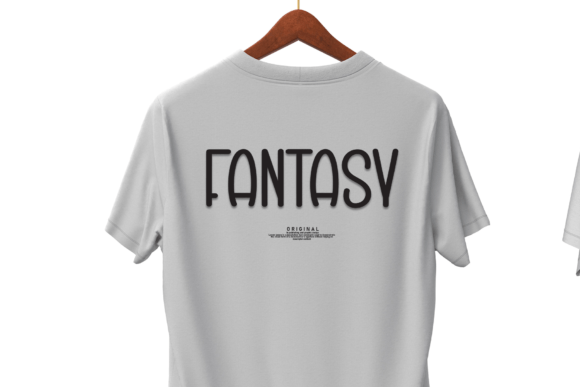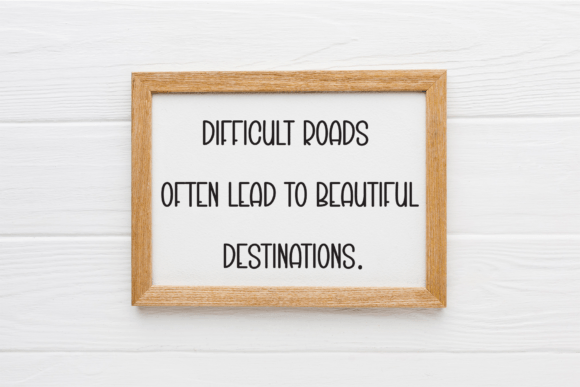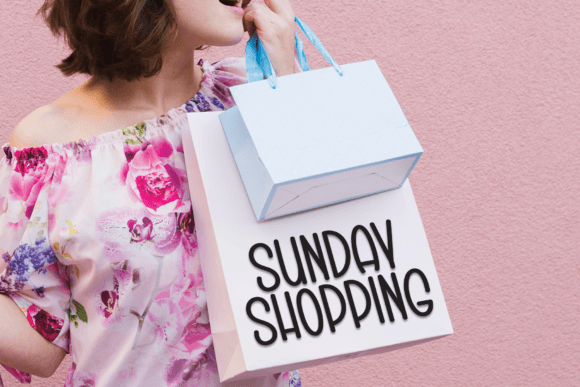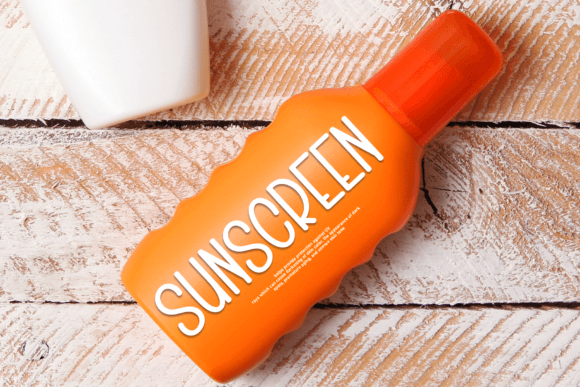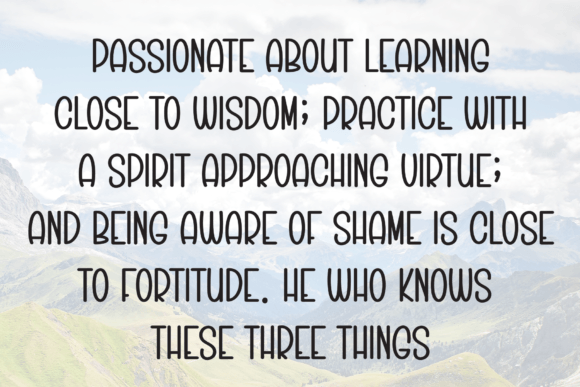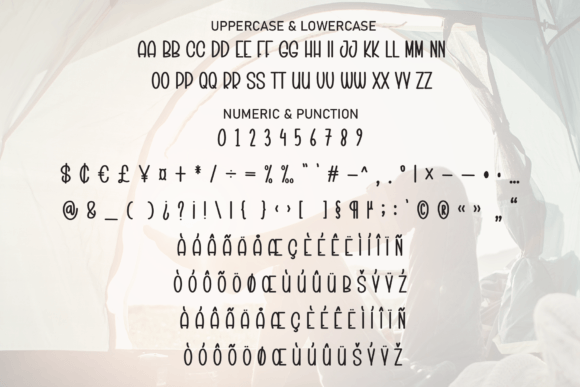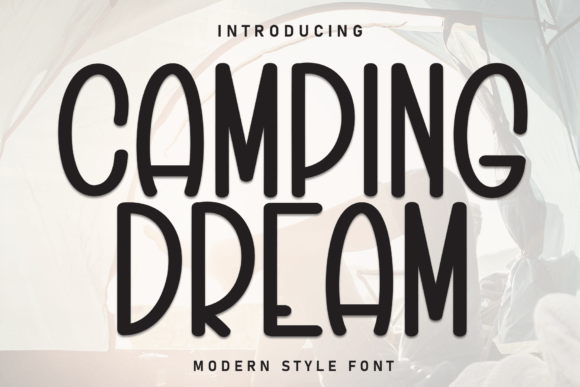
Camping Dream Font: The Perfect Companion for Your Creative Adventures
Are you a designer, crafter, or DIY enthusiast looking for a font that can add a personal touch to your projects? Look no further than the Camping Dream Font! This sweet and friendly handwritten font is designed to bring a natural and unique style to a wide range of designs, from camping and outdoor-themed projects to crafts, DIY tutorials, and more.
The Charm of Camping Dream Font
Camping Dream Font is a beautifully crafted handwritten font that exudes a sense of warmth and friendliness. Its natural and unique style makes it incredibly versatile, allowing you to use it in a variety of contexts. Whether you’re creating a logo, a poster, a social media graphic, or a craft tutorial, this font is sure to add a touch of personality to your design.
One of the standout features of Camping Dream Font is its ability to evoke a sense of adventure and freedom. Its carefree and spontaneous feel makes it perfect for designs that require a playful and outdoorsy vibe. Imagine using this font to create a camping-themed poster, a hiking brochure, or a outdoor gear catalog. The possibilities are endless!
What Makes Camping Dream Font So Special?
So, what sets Camping Dream Font apart from other fonts out there? Here are just a few reasons why this font is a must-have for designers and crafters:
- Unique and Handwritten Style: Camping Dream Font is a one-of-a-kind handwritten font that adds a personal touch to any design.
- Natural and Earthy Feel: This font has a natural, earthy feel that’s perfect for outdoor-themed designs, crafts, and DIY projects.
- Versatile and Adaptable: Camping Dream Font can be used in a wide range of contexts, from digital designs to print materials.
- Easy to Read and Understand: Despite its playful and handwritten style, Camping Dream Font is easy to read and understand, making it perfect for body text and captions.
How to Use Camping Dream Font in Your Designs
Now that we’ve covered the basics of Camping Dream Font, let’s talk about how to use it in your designs. Here are a few ideas to get you started:
- Camping and Outdoor-Themed Designs: Use Camping Dream Font to create posters, brochures, and social media graphics for camping and outdoor-themed projects.
- Crafts and DIY Tutorials: Add a personal touch to your craft and DIY tutorials with Camping Dream Font. It’s perfect for titles, headings, and captions.
- Logos and Branding: Use Camping Dream Font to create a unique and memorable logo for your outdoor gear company, camping business, or craft brand.
- Social Media Graphics: Add a touch of personality to your social media graphics with Camping Dream Font. It’s perfect for Instagram posts, Facebook graphics, and Twitter headers.
Tips and Tricks for Working with Camping Dream Font
Here are a few tips and tricks to help you get the most out of Camping Dream Font:
- Experiment with Font Sizes and Styles: Don’t be afraid to experiment with different font sizes and styles to find the perfect combination for your design.
- Pair with Other Fonts: Camping Dream Font pairs well with other fonts, so don’t be afraid to try pairing it with a sans-serif font or a script font.
- Use it for Headings and Titles: Camping Dream Font is perfect for headings and titles, but you can also use it for body text and captions.
In conclusion, Camping Dream Font is a sweet and friendly handwritten font that’s perfect for designers, crafters, and DIY enthusiasts. Its natural and unique style makes it incredibly versatile, and its carefree and spontaneous feel makes it perfect for outdoor-themed designs, crafts, and DIY projects. With its ease of use and flexibility, Camping Dream Font is a must-have for anyone looking to add a personal touch to their designs.